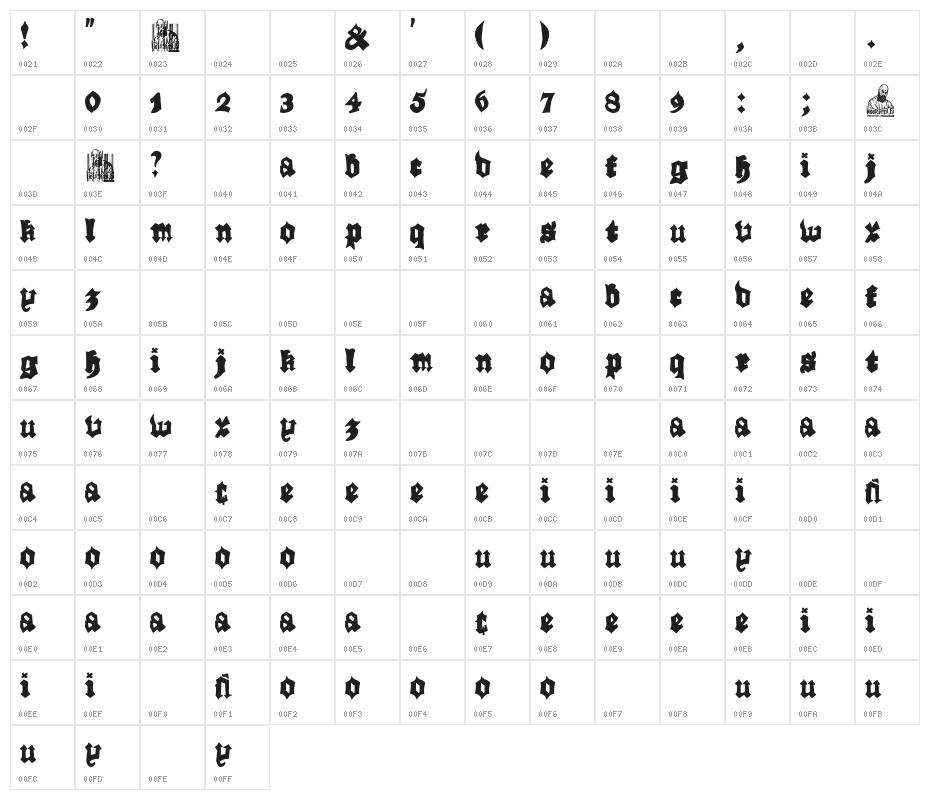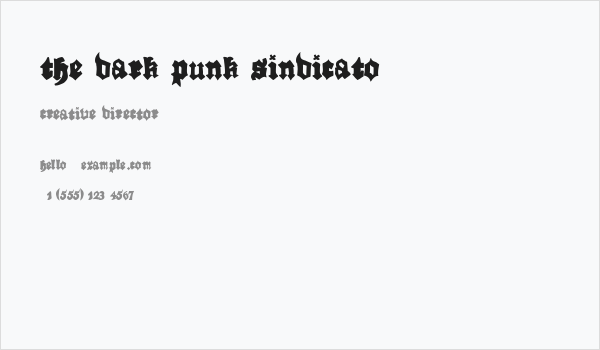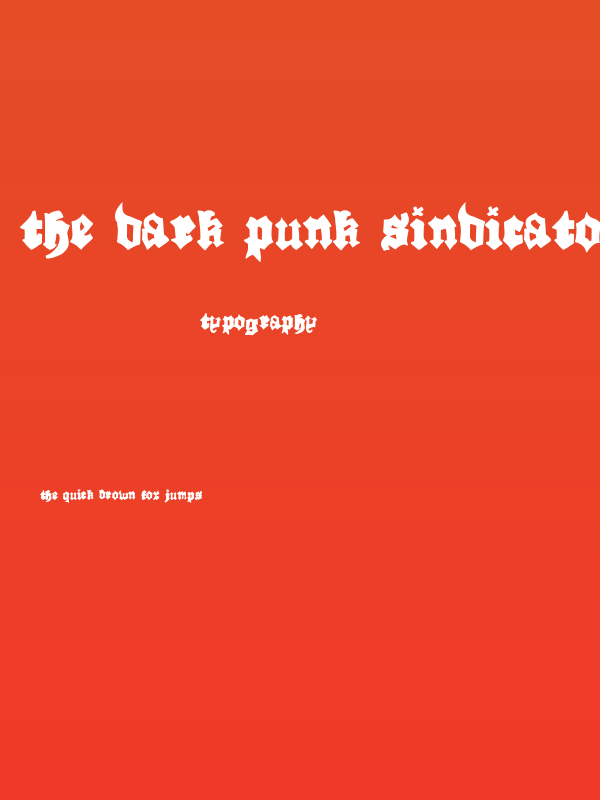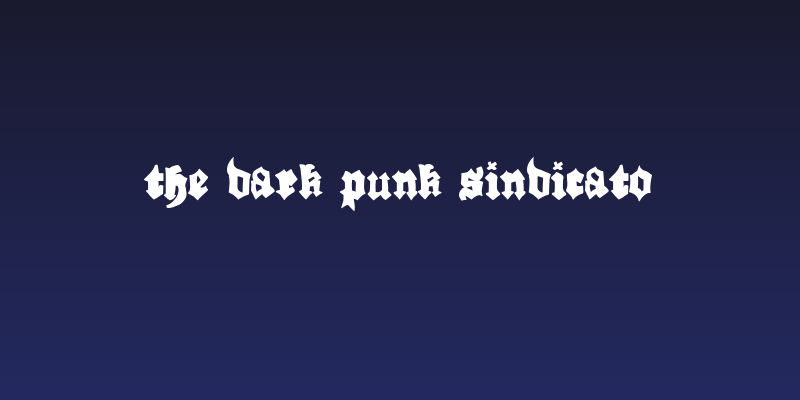
The Dark Punk Sindicato Font
The Dark Punk Sindicato Description
A bold, angular typeface with heavy strokes and sharp, pointed serifs, reminiscent of traditional blackletter or gothic styles. The characters are highly stylized with dramatic contrast and ornamental details, giving a strong, rebellious appearance.
| Overall Style | Decorative, Gothic, Punk, Vintage |
| Use Case | Logos, Headlines, Posters, Decorative text |
| Proposed Projects | Band logos, posters, tattoo designs, horror or punk-themed graphics, event flyers, merchandise branding. |